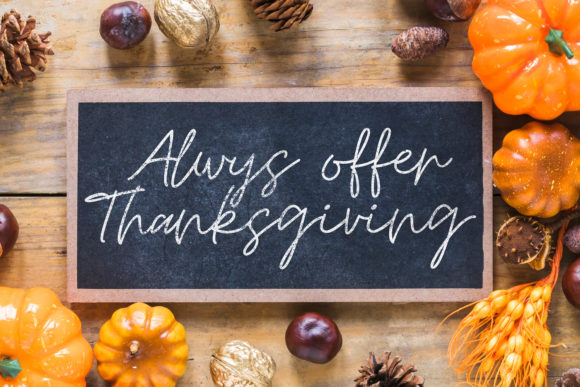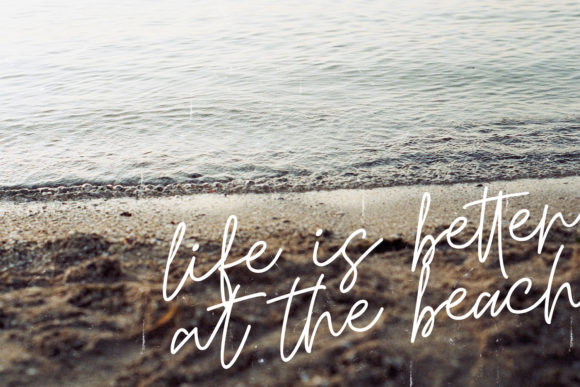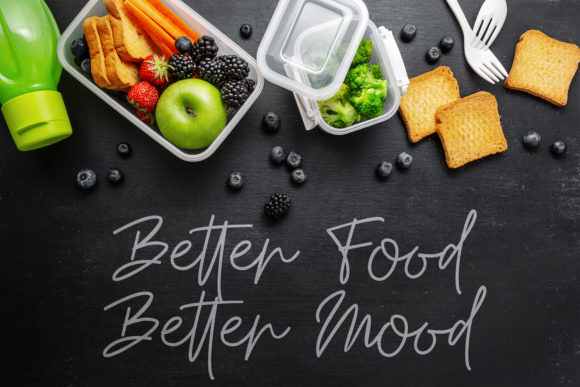
Introduction to Mashiya Font
Do you remember that moment when you stumbled upon the perfect design element for your creative project, and everything just clicked? For designers, finding the right font can be a game-changer. Whether you’re crafting a beautiful wedding invitation or creating stunning social media posts, the right font can elevate your work to the next level. That’s exactly what Mashiya Font is – a beautiful, high-quality handwritten font that’s sure to become your new go-to design resource.
With its smooth lines, gorgeous glyphs, and stunning alternates, Mashiya Font is an absolute delight to work with. Plus, its PUA encoding makes it incredibly easy to access all of its glyphs and swashes, giving you complete control over your design. Whether you’re looking for a free download or a premium design resource, Mashiya Font is sure to meet your needs.
Key Features of Mashiya Font
- High-quality, professional font design ideal for creative projects and designs requiring a unique touch.
- Includes a range of characters and glyphs, making it suitable for various languages and design applications.
- Designed as a versatile design resource, perfect for a variety of creative projects, from logos to typography-based designs.
Honest Review: Mashiya Font
I recently stumbled upon the Mashiya Font, and I must say, it’s a fantastic addition to any designer’s toolkit. As a designer, I’m always on the lookout for high-quality design resources to elevate my creative projects.
- ✨ Unique and quirky design: The Mashiya Font has a distinct, hand-drawn feel that’s perfect for adding a touch of personality to your designs.
While the Mashiya Font excels in many areas, there are a few limitations to consider:
- ⚠️ Limited font styles: At the time of my review, the Mashiya Font only comes in a few styles, which may limit its versatility for certain projects.
- ⚠️ Limited language support: The font may not support all languages, which could be a concern for designers working on multilingual projects.
Overall, I’m impressed with the Mashiya Font’s unique design and high quality. While it may have some limitations, it’s an excellent choice for designers working on creative projects that require a touch of personality and flair.
Tips for Getting the Most Out of Mashiya Font
To get the most out of Mashiya Font, use it with a transparent background to create a high-quality design. Experiment with different font sizes, colors, and combinations to achieve a unique look. Consider using Mashiya Font as a design resource for your creative project, especially when you need a stylish and modern touch.
Common Use Cases for Mashiya Font
Mashiya Font is ideal for various design projects, including logos, social media graphics, business cards, and posters. Its high-quality design and versatility make it a great resource for designers and non-designers alike.